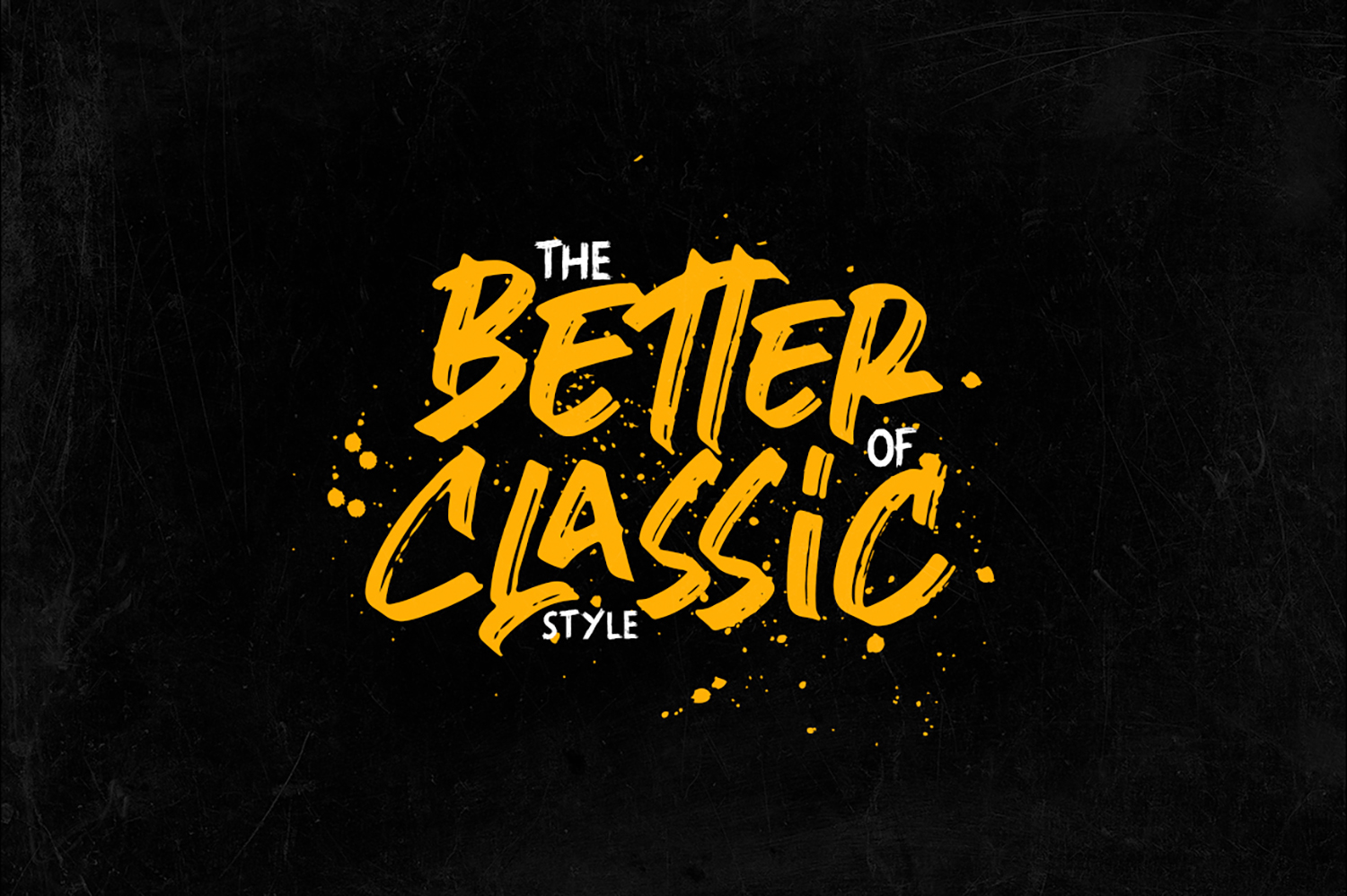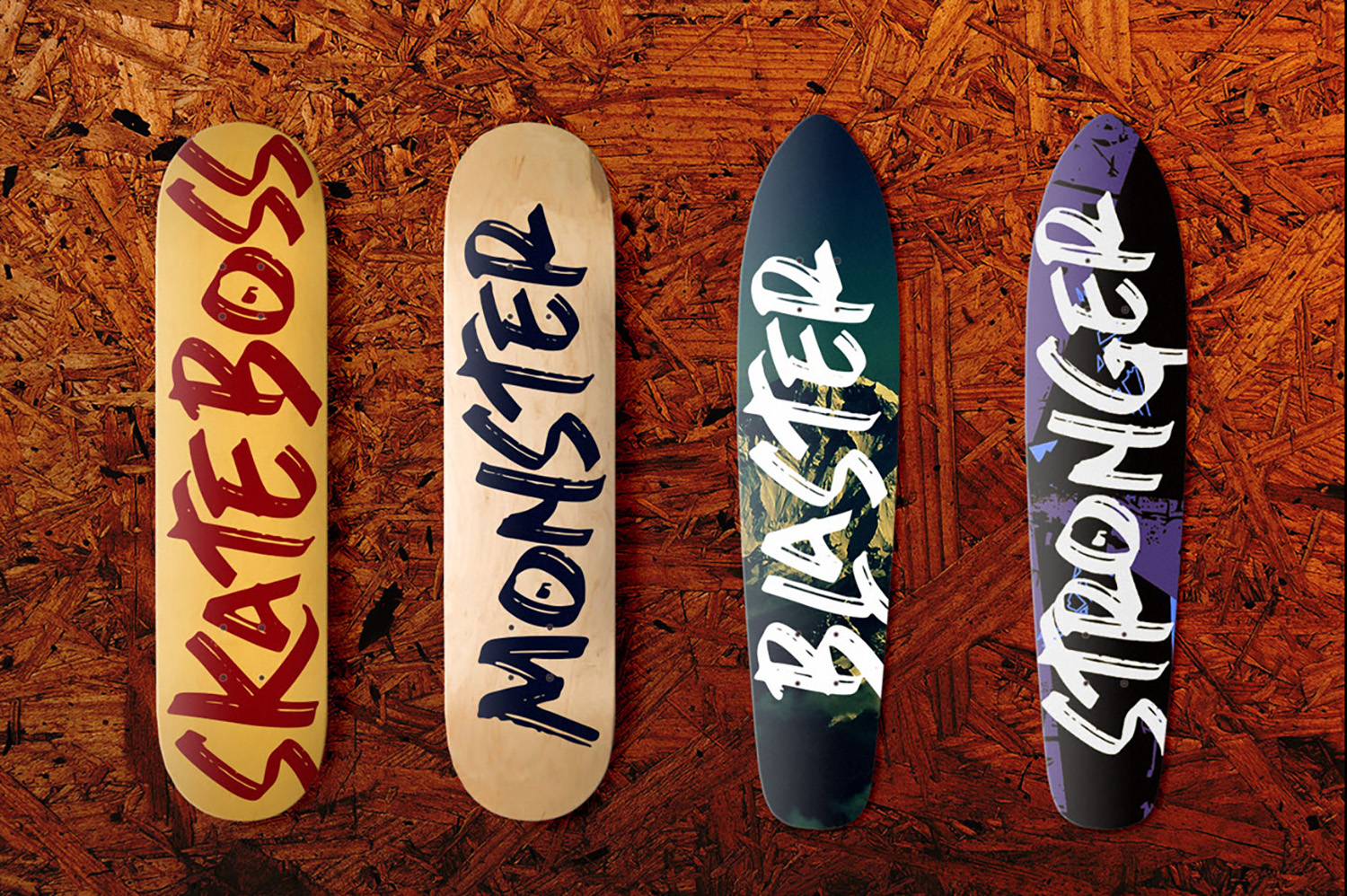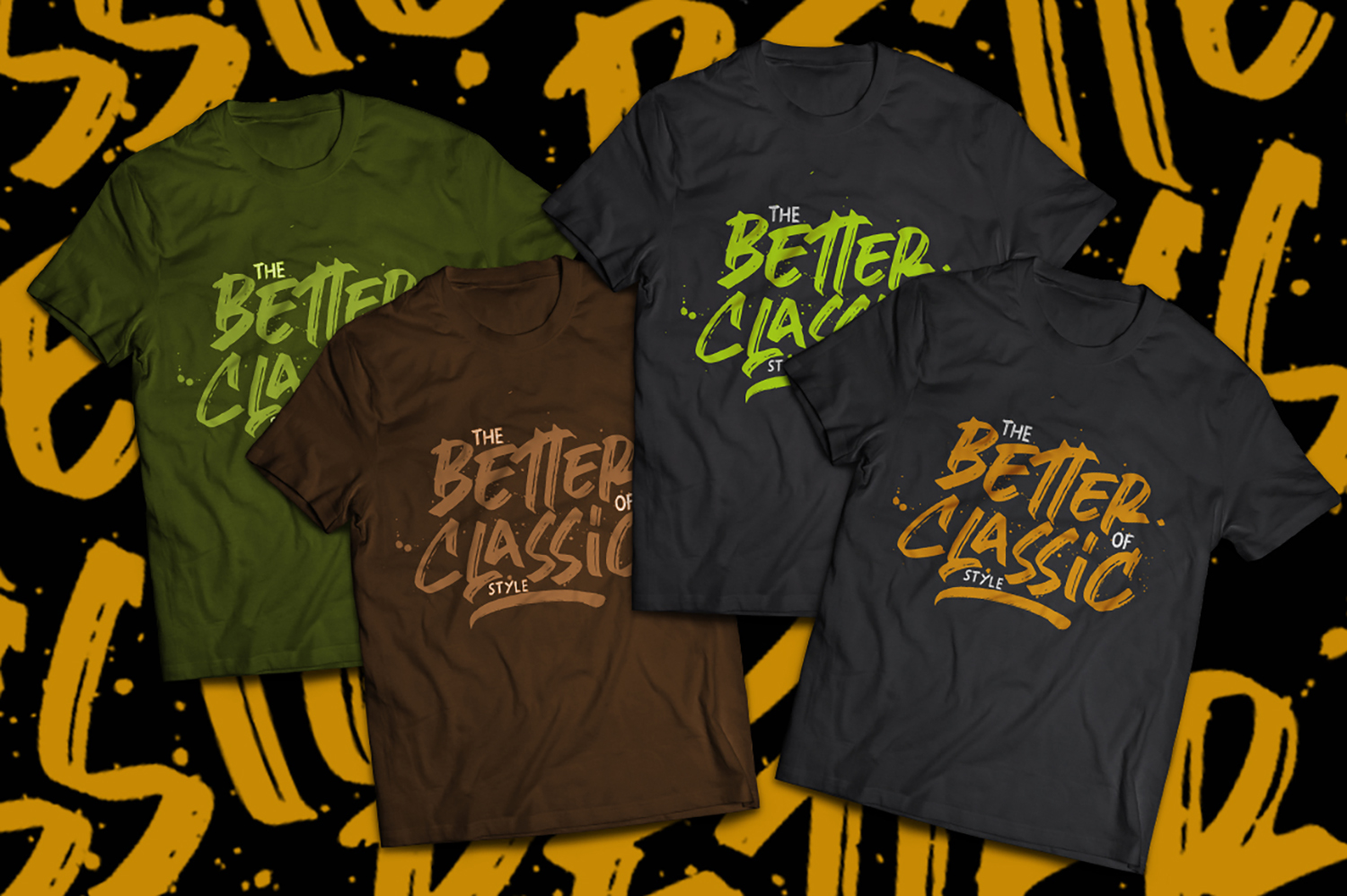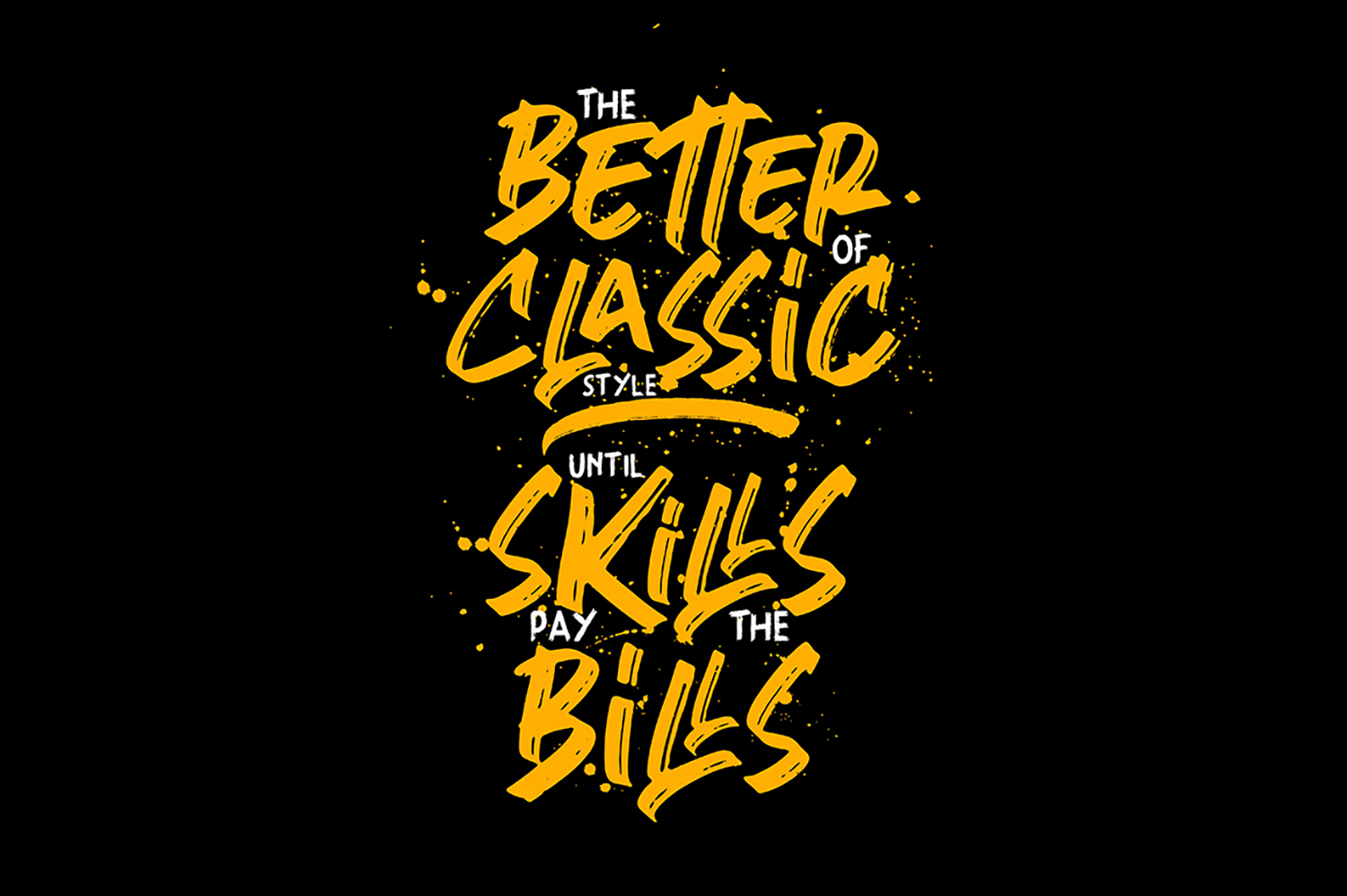
The Stronger Free Font
The Stronger Free Font is a supercharged, street-wise brush font bursting with energy. With extra attention to quick strokes and sharp details, Stronger is ideal for logos, apparel, quotes, product packaging, or anything which needs a typographic turbo-boost. This free typeface was designed by a talented Malik Wisnu. If you like it don’t forget to check out the full version.